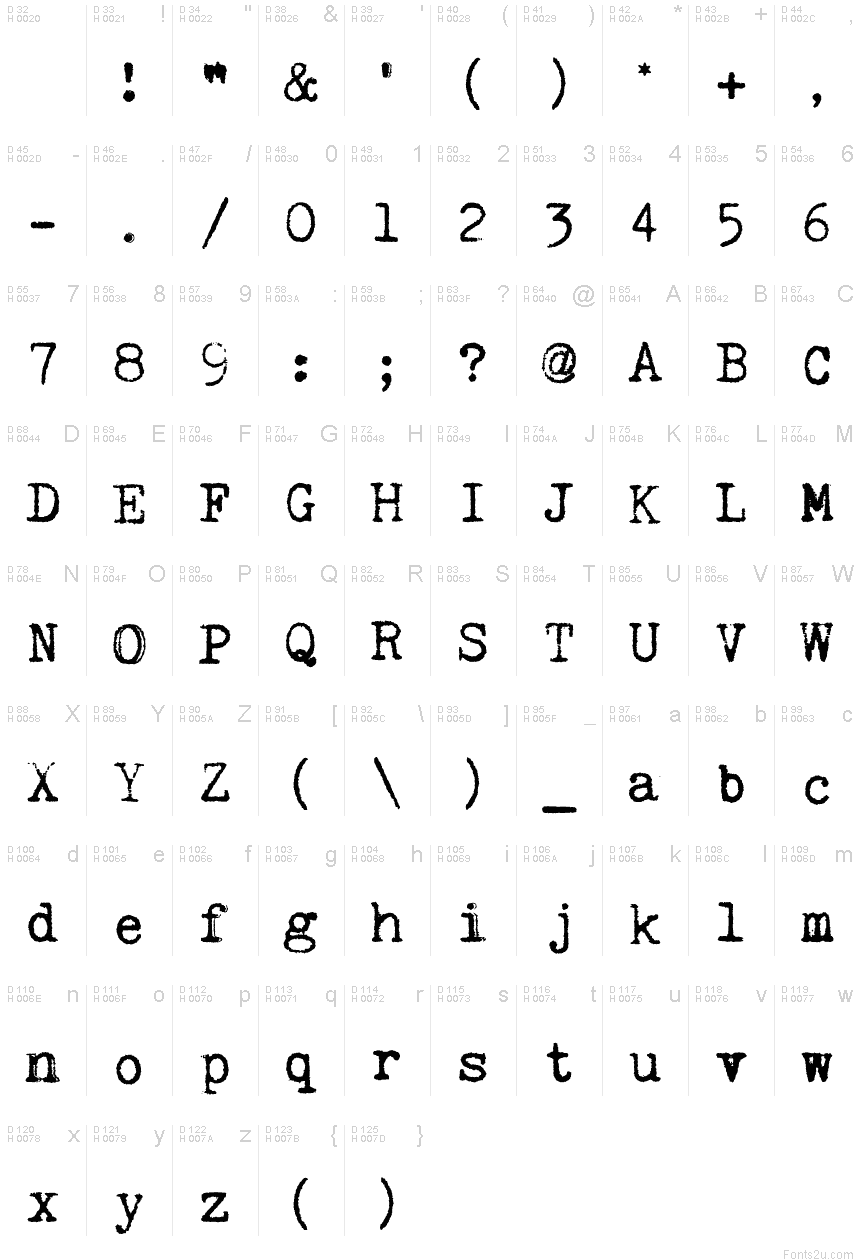
Kingthings Trypewriter
Kingthings Trypewriter font by Kevin King is a free eroded typewriter serif font. Its letters look like they’ve been hammered out on a temperamental old machine—ink pooling at the edges, edges rough and splintered, spacing just irregular enough to feel human. The result is a crunchy, smudged texture that instantly suggests worn paper, carbon copies, and secret files dragged from a dusty cabinet.
Using Kingthings Trypewriter, you can give instant atmosphere to horror book covers, mystery posters, escape room branding, vintage zines, album artwork, and moody game menus. This free font brings a gritty, analog tension that makes short headlines and quotes feel urgent and a bit unsettling. For a strong hierarchy, pair it with a clean sans serif for body text and keep Kingthings Trypewriter big and bold for titles and key phrases only.